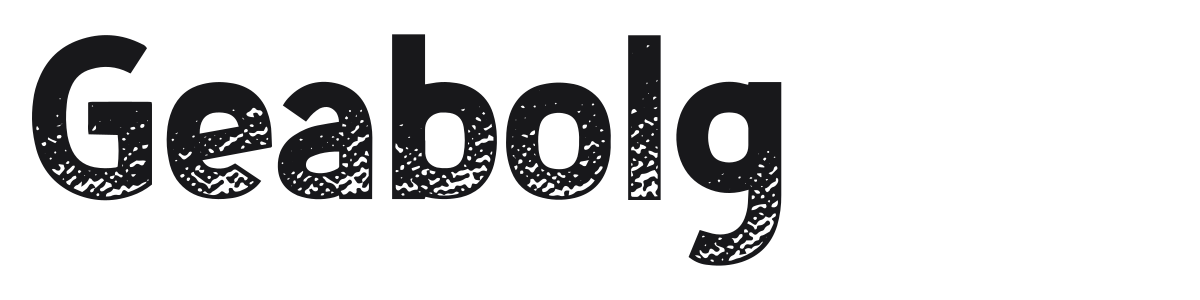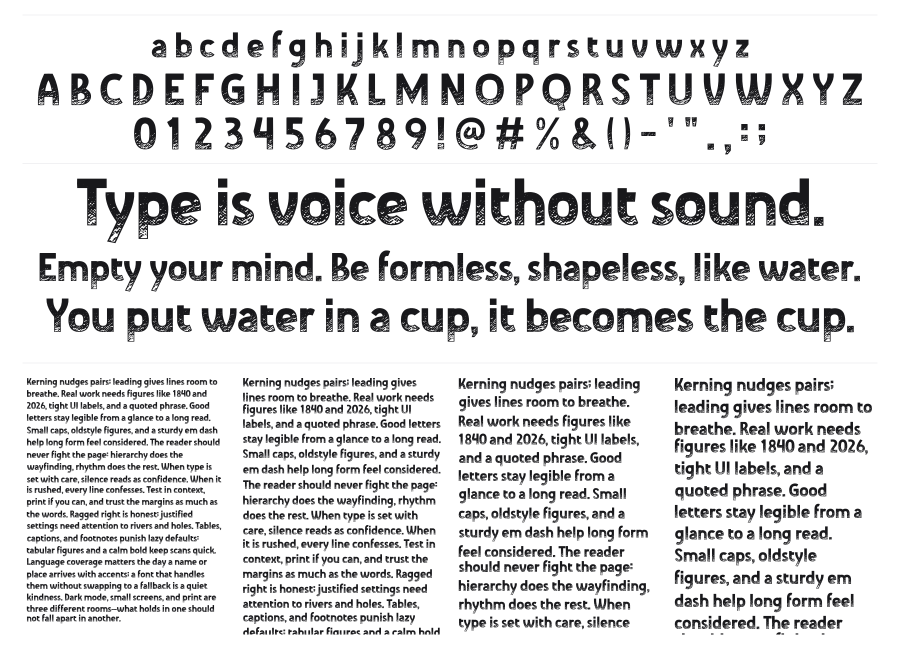
Geabolg
Geabolg is a heavy rounded sans-serif built on a bold grotesque skeleton and aged with a coarse grain texture that eats into the strokes. The distressing is dense enough to read as genuinely worn rather than decorative. Strong at large sizes on posters, album art, and any context where a rough, energetic edge is the point.